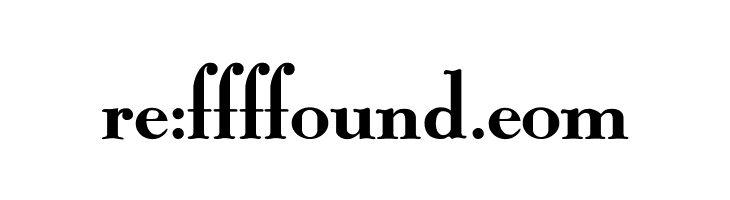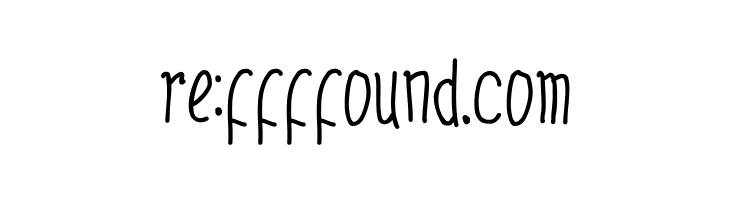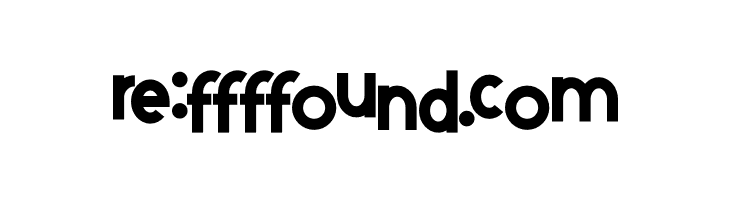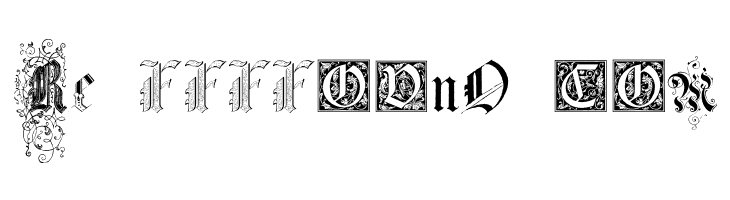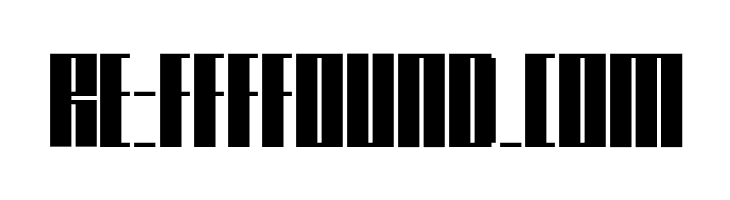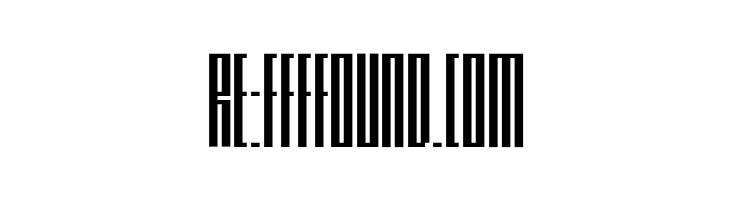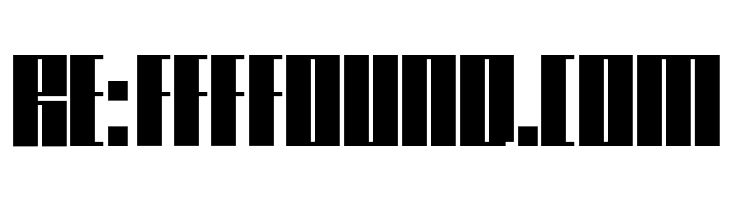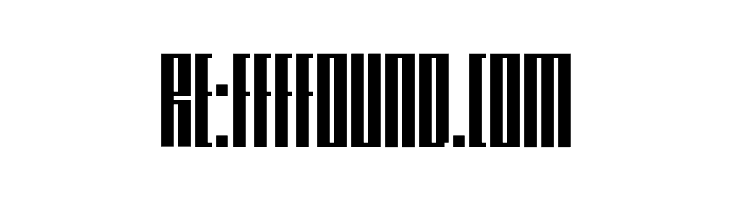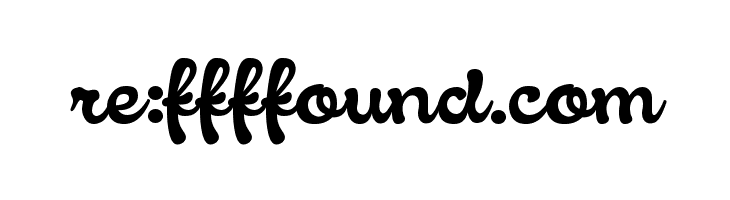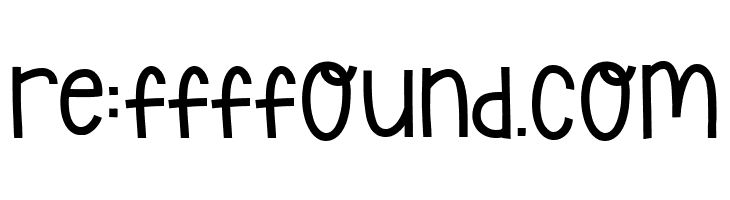
( Fonts by Kimberly Geswein )
A whimsical and ornate script font with flowing, interconnected letters.
( Fonts by Carolina Valtuille )
A playful, handwritten font with an informal and organic style.
A classic serif font with elegant, sharp serifs and a sophisticated appearance.
( Xerographer Fonts - Max Infeld - xerographer.blogspot.com )
( Andréa de Carlo - www.thaneydesign.com )
A playful, hand-drawn font with a rustic and whimsical style.
A bold, brush-style font with a playful and artistic flair.
( Fonts by Intellecta Design )
An ornate Blackletter-inspired font with intricate details and a vintage gothic aesthetic.
An ornate, decorative Blackletter-style font with intricate detailing.
A playful, hand-drawn font mimicking children's handwriting with a whimsical and informal style.
A bold, geometric font with a modern and clean design.
( Peter Olexa - www.dealjumbo.com )
A bold, geometric font with a modern and clean aesthetic.
( Fonts by Chequered Ink )
A bold, slab serif font with a collegiate, vintage style.
A bold, high-contrast serif font with a classic and authoritative style.
( Fonts by Barland )
An elegant, flowing script font with medium contrast, ideal for formal and decorative uses.
( Twicolabs Fontdation - Fahrizal Tawakkal - fontdation.com )
A playful and elegant script font with fluid, cursive strokes.
( Twicolabs Fontdation - Fahrizal Tawakkal - fontdation.com )
A lively and elegant script font with bold, flowing letterforms.
( Zetafonts - www.zetafonts.com )
A playful, slanted monoline font with a handwritten feel and decorative cat silhouettes.
( Fonts by Marivo )
An ultra-condensed, tall font with a modern, geometric style.
( Fonts by Marivo )
A modern, elongated font with a sleek, geometric design.
( Fonts by Marivo )
A bold, geometric font with uniform thickness and a modern, industrial style.
( Fonts by Marivo )
A bold, geometric font with uniform width and sharp angles.
( Fonts by Marivo )
A bold, geometric font with thick, block-like strokes and uniform width.
( Fonts by Marivo )
A bold, geometric font with a blocky, modern design.
( Sharkshock - Dennis Ludlow - www.sharkshock.net )
A modern sans-serif font with rounded edges and uniform stroke width.
( Fonts by Aleksandar Stevanov )
A bold, handwritten font with a dynamic and energetic style.
( Copyright 2016 The Kokoro Project Authors. )
A playful, rounded font with a whimsical and friendly design.